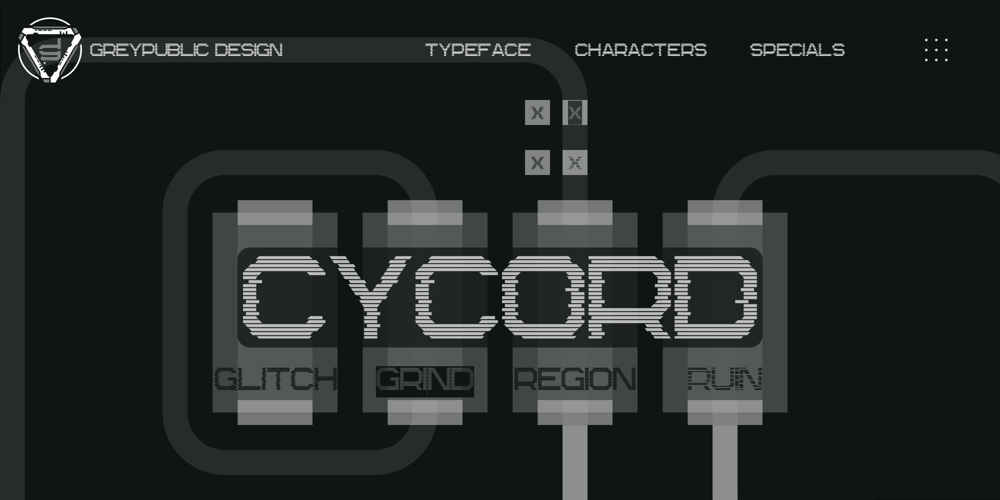
CyCord Font Family was designed by Eko Nur Setiawan and published by Greypublic. CyCord contains 4 styles and family package options. The Cy-cord typography series appears to have a futuristic and digital aesthetic, with it’s characters composed of segmented, horizontal lines. Each letter has a geometric, block-like structure, evoking a technological and sci-fi theme. The use of uniform horizontal stripes gives the typeface a modern, minimalistic feel, while maintaining legibility and a bold presence. This style would be ideal for designs in tech industries, video game titles, or digital branding where a cutting-edge, sleek look is desired.